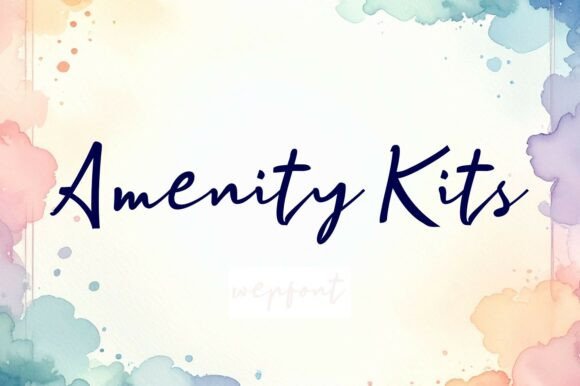
The Elegance of Amenity Kits Font: A Designer’s Delight
I still remember the design project that led me to discover the Amenity Kits font. I was working on a luxury brand’s packaging, and my client requested a font that exuded elegance and sophistication. After hours of searching, I stumbled upon Amenity Kits, and it was love at first sight. The font’s slender, flowing strokes and gentle connections immediately caught my attention, and I knew I had found the perfect fit.
- ✨ Delicate and airy, with a light and ethereal presence that feels high-end and luxurious
- ✅ Elegant script characteristics with a modern twist, maintaining readability while offering beautiful stylistic flair
- 💫 Artistic and refined, with an inherent quality that suggests care, precision, and beauty in its design
- 🔥 Understated sophistication, making it versatile for both formal and tastefully casual applications
While Amenity Kits is an exceptional font, there are a few minor quirks to be aware of:
- ⚠️ Some letters may appear a bit narrow, which can affect legibility at smaller font sizes
- 🤔 Limited availability of bold or heavy weights, which may limit its use in certain design applications
The Amenity Kits font was designed with the intention of capturing the essence of refined elegance and subtle artistry. The designer, inspired by the flowing strokes of fine-tip pens and brushes, aimed to create a font that would evoke a sense of luxury and sophistication. While the designer’s true identity remains a mystery, their passion for typography and design is evident in every detail of Amenity Kits.
Q: What makes Amenity Kits suitable for luxury brands?
A: Amenity Kits’ delicate and airy quality, combined with its elegant script characteristics, make it an excellent choice for luxury brands looking for a sophisticated and refined font.
Q: Can I use Amenity Kits for body text?
A: While Amenity Kits is a beautiful font, it’s best suited for headlines, titles, and short paragraphs. Its delicate nature may not be ideal for lengthy body text.
Q: Is Amenity Kits available in multiple weights?
A: Currently, Amenity Kits is available in a single weight, but its versatility and elegance make it suitable for a wide range of design applications.